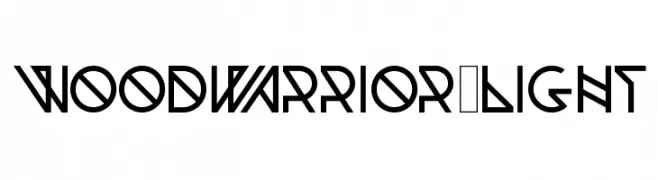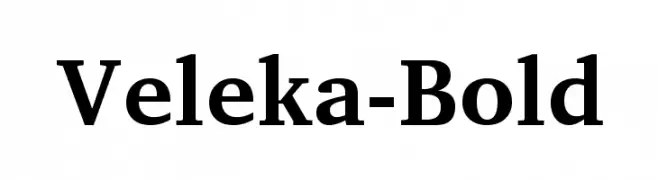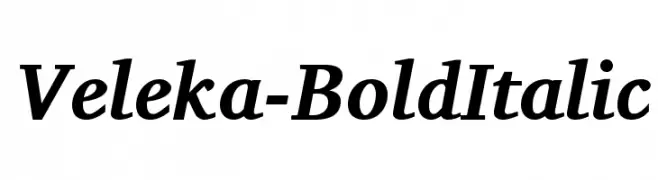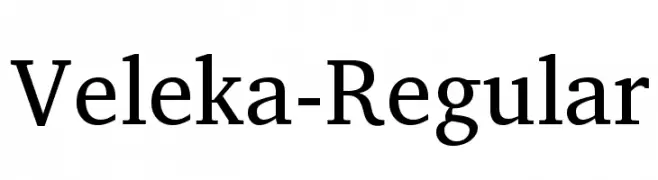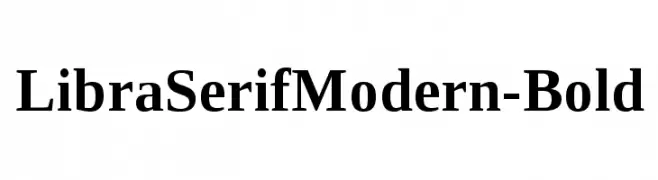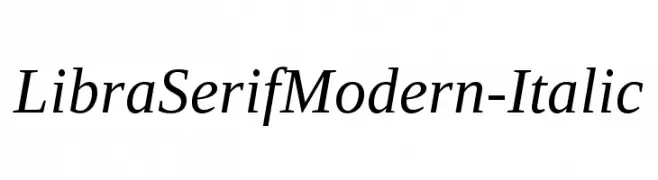
A classic serif typeface with medium weight and balanced readability.
A bold, geometric font with sharp angles and a modern aesthetic.
A geometric and angular font with a modern, bold aesthetic.
A refined serif font with high contrast and elegant details.
A bold serif font with strong vertical strokes and a classic yet modern appearance.
A bold, italic serif font with a classic and elegant style.
A classic serif font with modern elegance and balanced proportions.
An elegant italic serif font with smooth curves and moderate contrast.
A bold, modern serif font with strong serifs and a classic yet contemporary look.
An elegant serif font with a modern, italicized style.